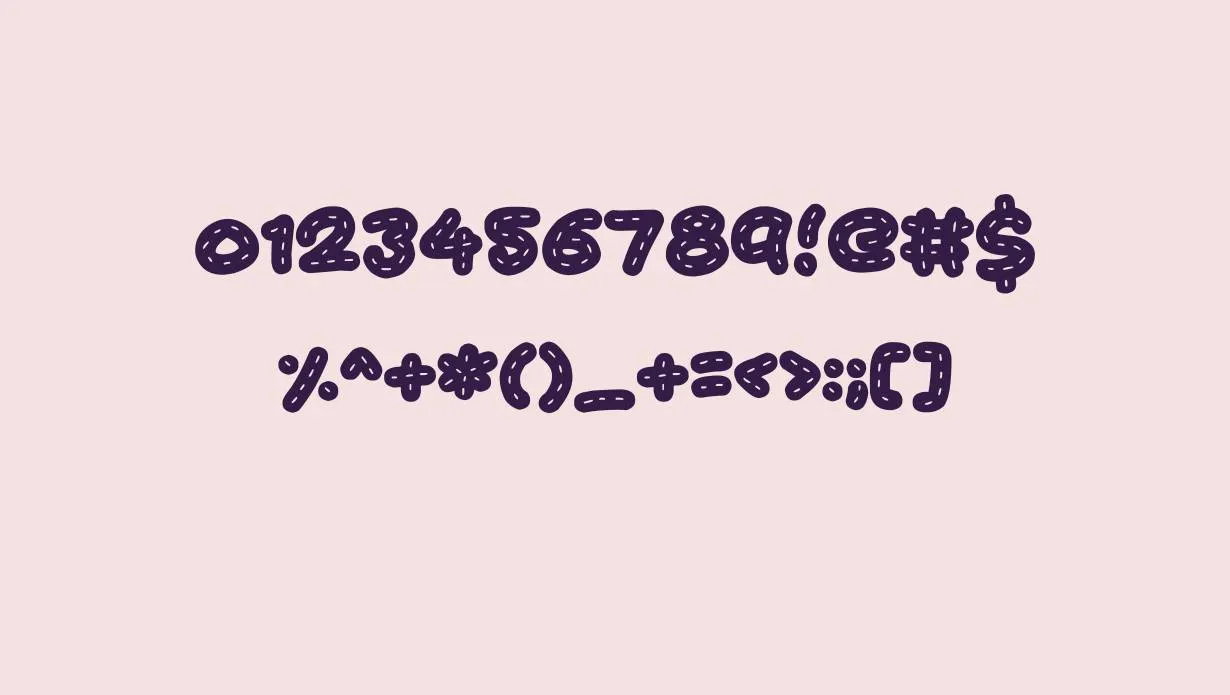
Kawaii Stitch Font is an interesting typeface with unique features for various types of projects. This stunning typeface was designed by Darrell Flood for Hawtpixel Foundry. The characters of this font have a bold and playful appearance perfect for your project and assignment.
View of Kawaii Stitch Font